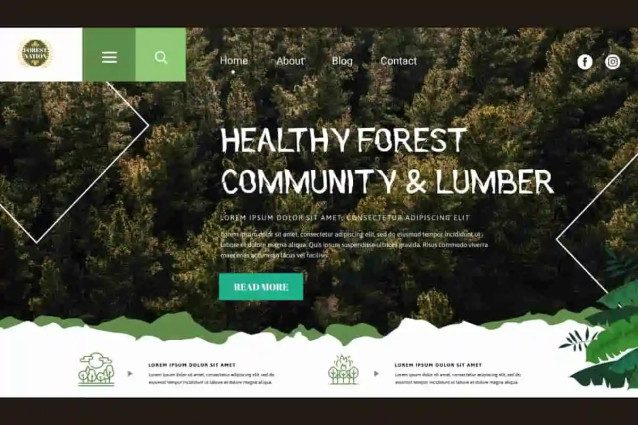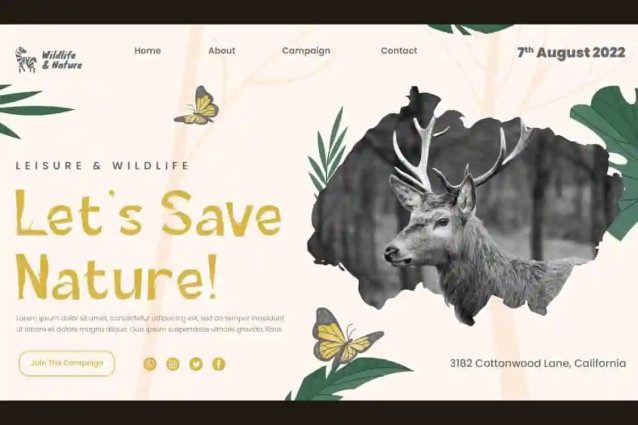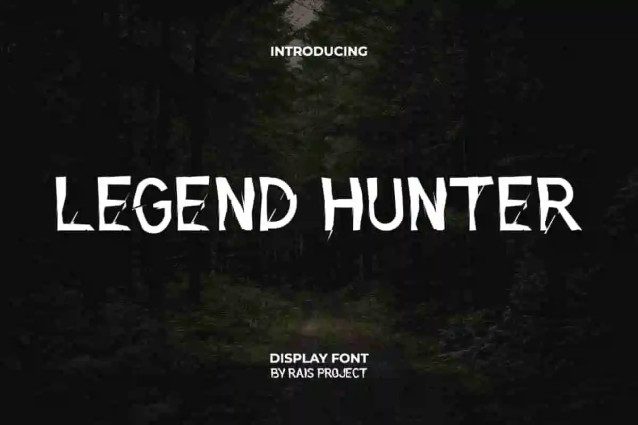
Legend Hunter Font
Legend Hunter Font is a creepy creative display font, by RaisProject. This font resembles a piece of wood that has been sliced or cut randomly, giving it a look that will give you goosebumps. It will be good for custom design, label, poster, invitation, signage, cover, menu, brand image, product packaging, quotes, stationery, web, and more!
Introducing Legend Hunter Display Font – a bold, adventurous, and powerful typeface crafted to capture the spirit of exploration and heroism. With sharp edges, strong lines, and a striking display style, Legend Hunter is designed to make your projects stand out with fearless energy and timeless appeal. Perfect for gaming graphics, fantasy posters, branding, book covers, and event promotions, this font adds drama and intensity to every design.
Legend Hunter Display Font embodies strength, adventure, and creativity. Its bold characters are ideal for crafting unique logos, captivating merchandise, powerful headlines, and eye-catching advertising materials. Whether you’re working on esports visuals, action-themed campaigns, or entertainment branding, Legend Hunter delivers an unforgettable impact.